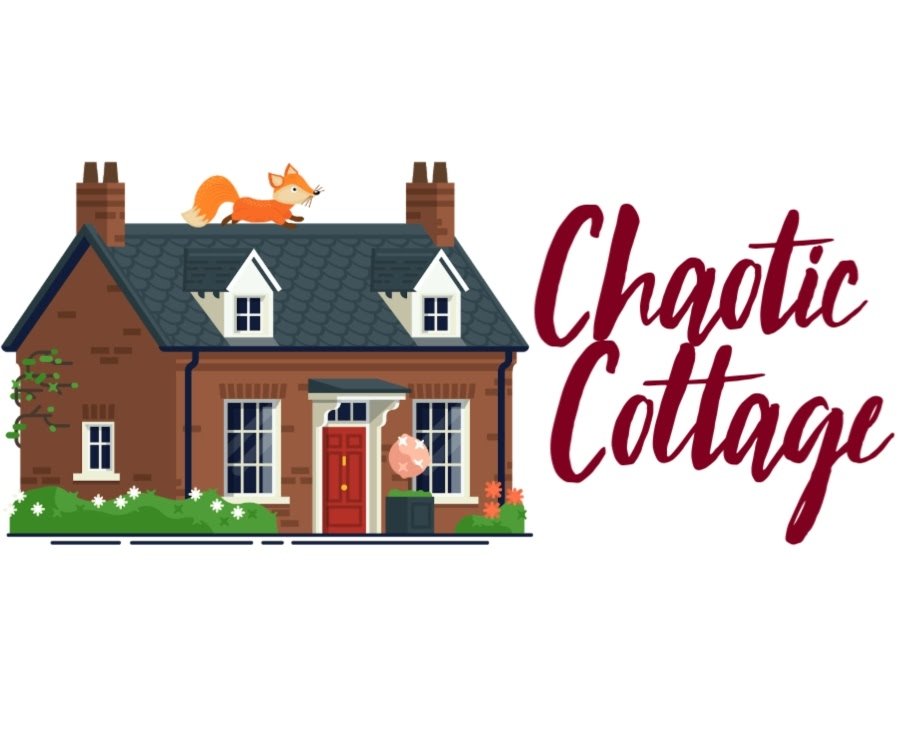
Modern brush font - October Storm
October Storm is an edgy, modern brush font which is waiting to be used for your next project! This font is perfect for making logo's, invites, quotes, photo overlays, and any other awesome projects you're working on.